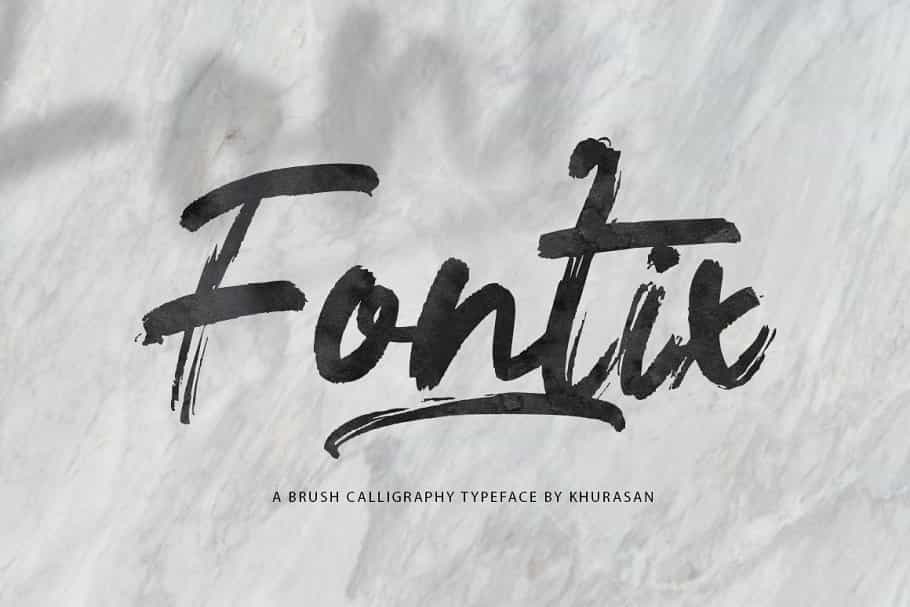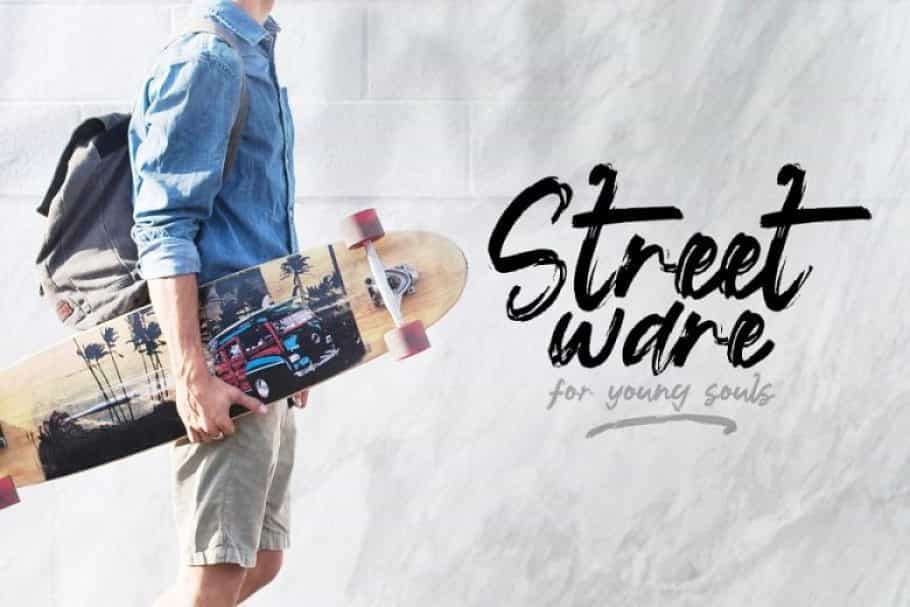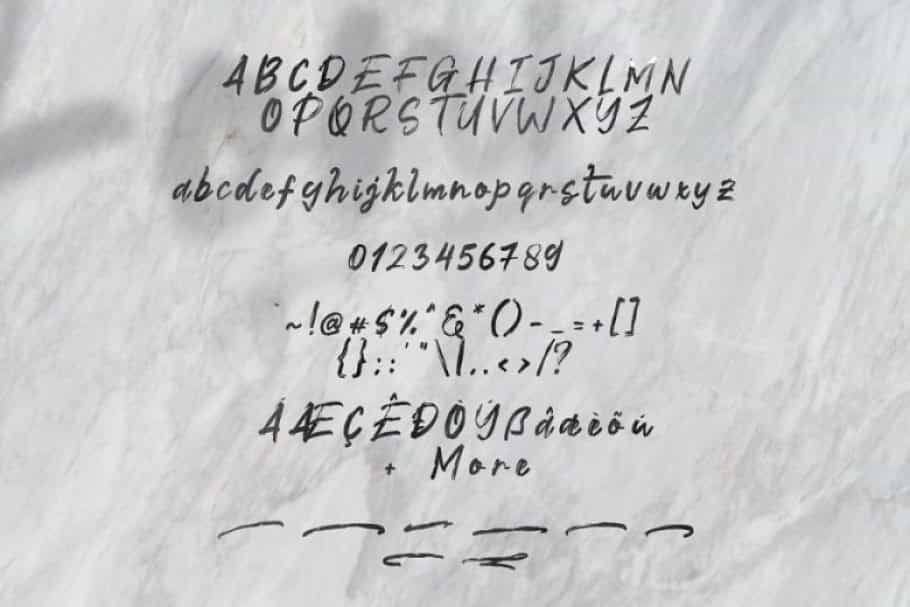
Introducing Fontix Brush Font. Made with naturally brush. The texture from the brush font will make your design look more attractive and strong. This font is the best fit for any design such as branding, quotes, t-shirt printing and so on.